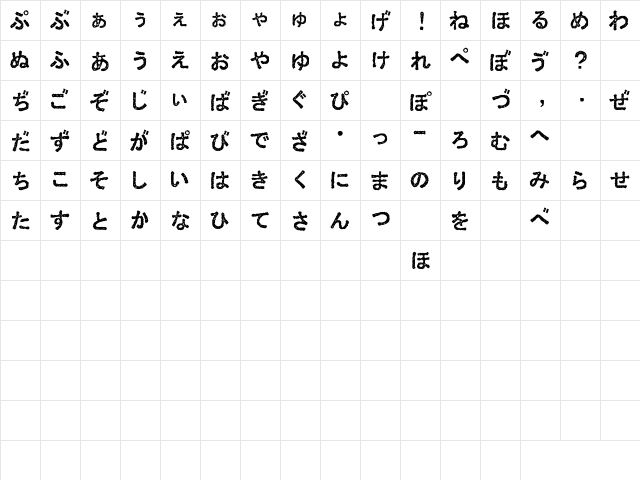
Ex Hira Damaged Regular
Design Context for Ex Hira Damaged Typeface
Ex Hira Damaged offers clean, dependable letterforms without strong stylistic allegiance, making it a practical choice for designers who need flexibility.